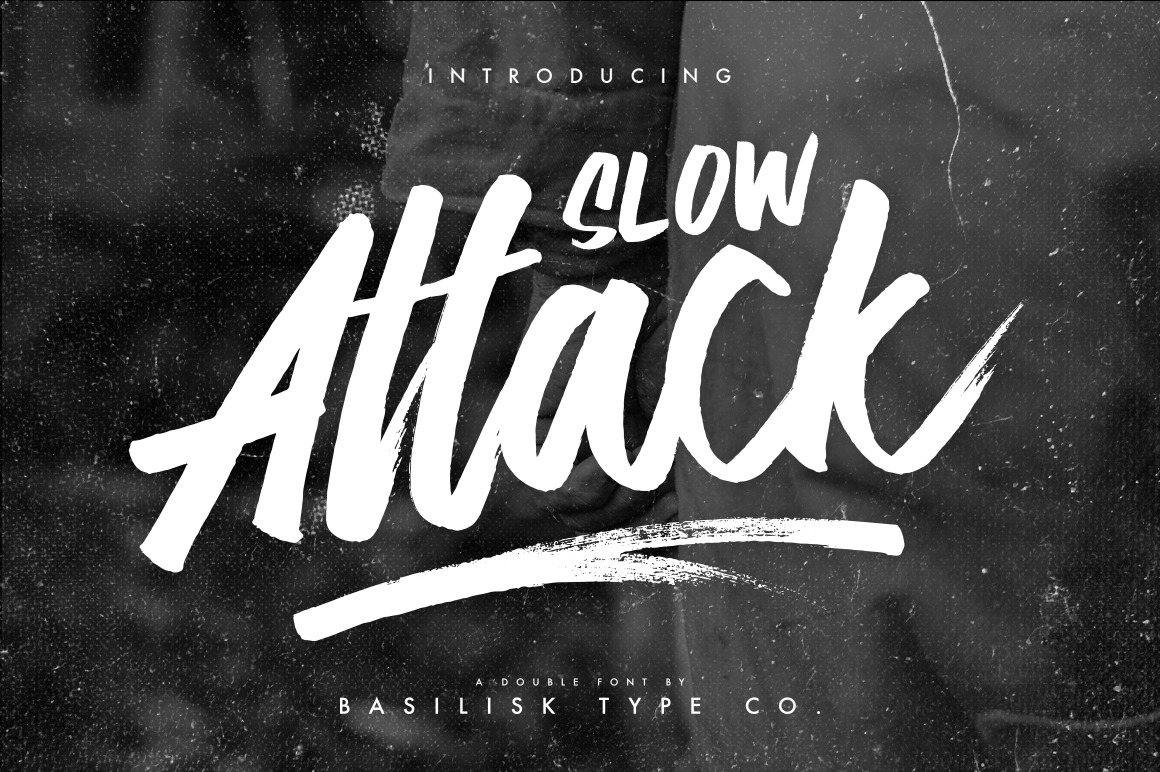
Slow Attack - Double Fonts
Get ready for our first release, Slow Attack Its a double fonts with script version and all-caps version, came out straight from the fast penbrush stroke. Always fit for your poster quote things, logo, branding, magazine headlines, sign, etc.
We pay a lot attention for those fade strokes from the fast handwriting detailed so its still get those kinda handmade feels on it.
Slow Attack font, Comes with an Uppercase, Lowercase, Numbers, Puncts, and Multilingual Support, And of course Stylistic Alternates for some letters and Double letters Ligature to maintain the handwriting feels so it doesn't look like typed by keyboard.
Slow Attack 2 is an all-caps font with English language supported. To make a good pair with the Slow Attack script version. No need to find another pairings, its all here ;)
Swashes Vector Bonus a good finishing touch for your quotes or poster design with this two font, feel it.